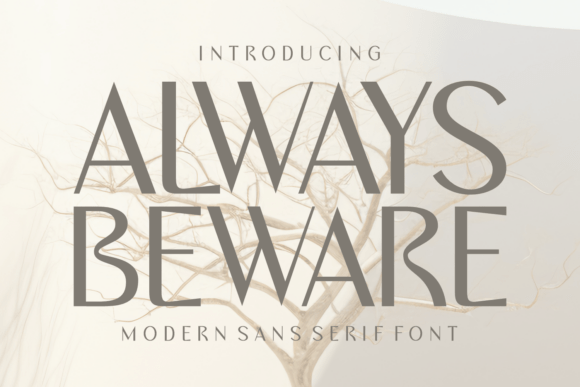
The Elusive Perfect Font: My Journey with Always Beware
I’ll never forget the frustration of working on a high-end fashion brand project, searching for a font that exuded modern sophistication and elegance. My client wanted a sleek, high-fashion look that would make their luxury products stand out, but I was struggling to find the perfect fit. That’s when I stumbled upon Always Beware, a stunning sans serif font that instantly caught my attention.
With its tall, elegant proportions and minimalistic curves, Always Beware brought a sharp sophistication to my design that I hadn’t seen before. It was love at first sight! ✨ In this article, I’ll share my honest review of Always Beware, provide a practical guide on how to use it, and explore similar fonts that might suit your design needs.
An Honest Review of Always Beware
• ✨ Sleek and stylish sans serif design perfect for modern branding and high-fashion aesthetics
• ✅ Elegant proportions and minimalistic curves for a sophisticated look
• ✅ Great for editorial layouts, luxury product packaging, magazine headlines, and digital graphics
• ✅ Balances refinement with modern minimalism
While Always Beware is an excellent font, there are a few things to keep in mind: 🤔
• ⚠️ Limited character set: Always Beware might not have an extensive character set, which could limit its use for certain projects.
• ⚠️ May not be suitable for body text: Due to its elegant and slender design, Always Beware might not be the best choice for lengthy body text.
The Designer Inspiration Behind Always Beware
Always Beware was designed with the modern designer in mind. Its creator aimed to craft a font that would bring a touch of sophistication and elegance to high-end branding and design projects. The designer’s inspiration came from the world of luxury fashion and modern art, resulting in a font that’s both refined and cutting-edge.
Q: What is the best use for Always Beware?
A: Always Beware is perfect for high-end branding, luxury product packaging, magazine headlines, and digital graphics.
Q: Can I use Always Beware for body text?
A: While Always Beware is elegant and refined, it might not be the best choice for lengthy body text due to its slender design.
Q: Does Always Beware support OpenType features?
A: Yes, Always Beware supports OpenType features, which can add more creativity and sophistication to your design.